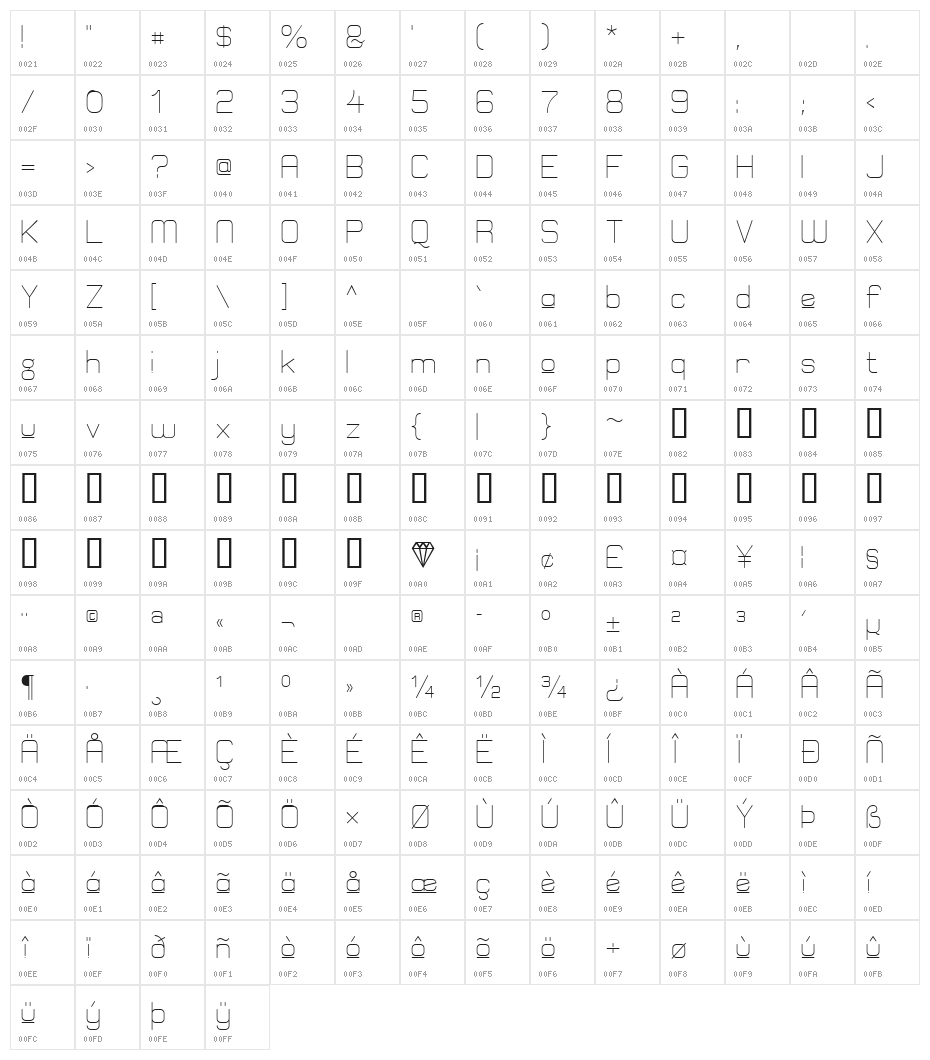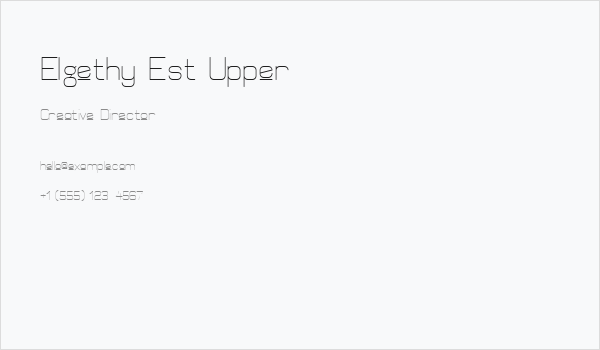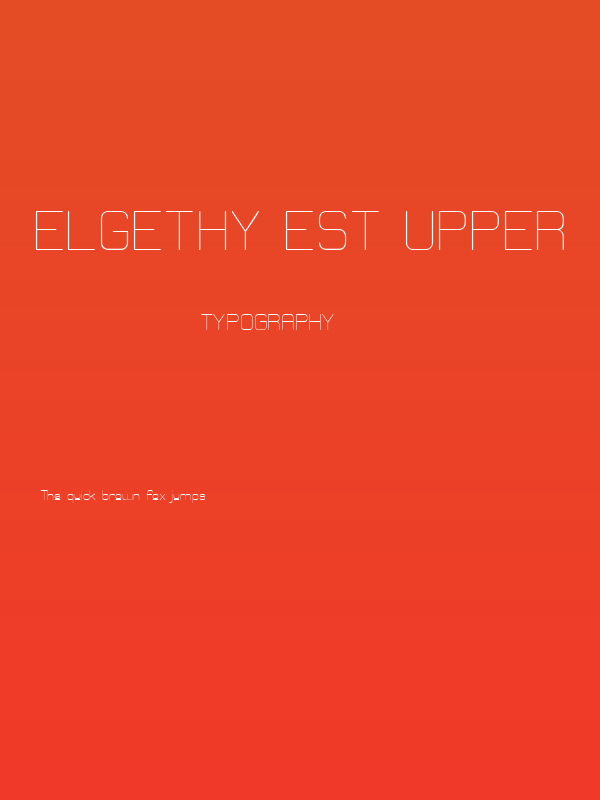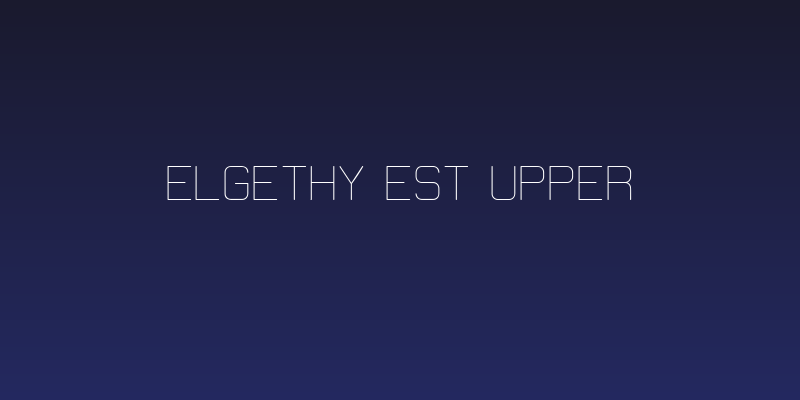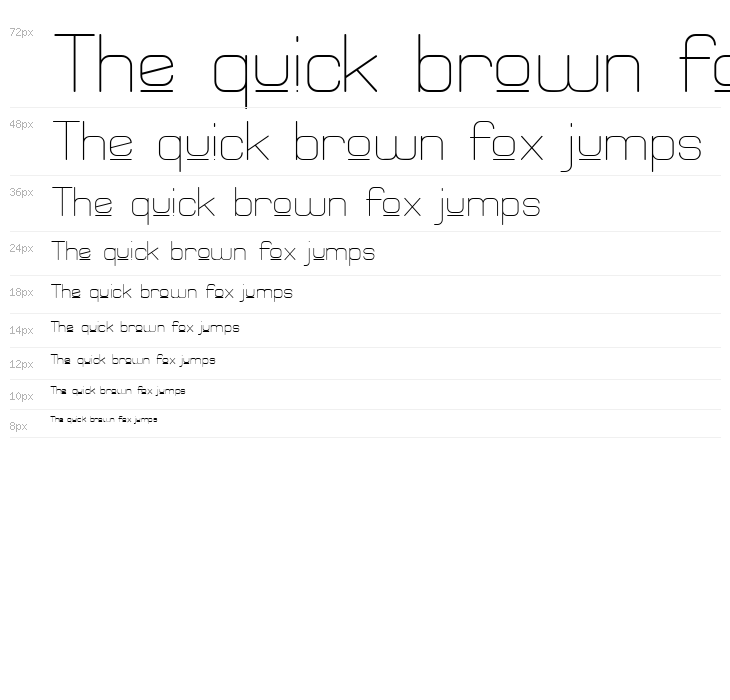
Elgethy Est Upper Font
Elgethy Est Upper Description
This font features a modern, geometric design with clean, straight lines and rounded edges. The characters are constructed with a consistent stroke width, giving it a monolinear appearance. The uppercase letters are tall and narrow, while the lowercase letters maintain a similar width, creating a harmonious balance. The numerals and special characters follow the same design principles, ensuring uniformity across all glyphs. This font's minimalist aesthetic makes it suitable for contemporary design projects, where clarity and simplicity are desired.
| Use Case | Logos, Headlines, Digital interfaces |
| Proposed Projects | Ideal for tech branding, modern logos, digital interfaces, and minimalist posters. |